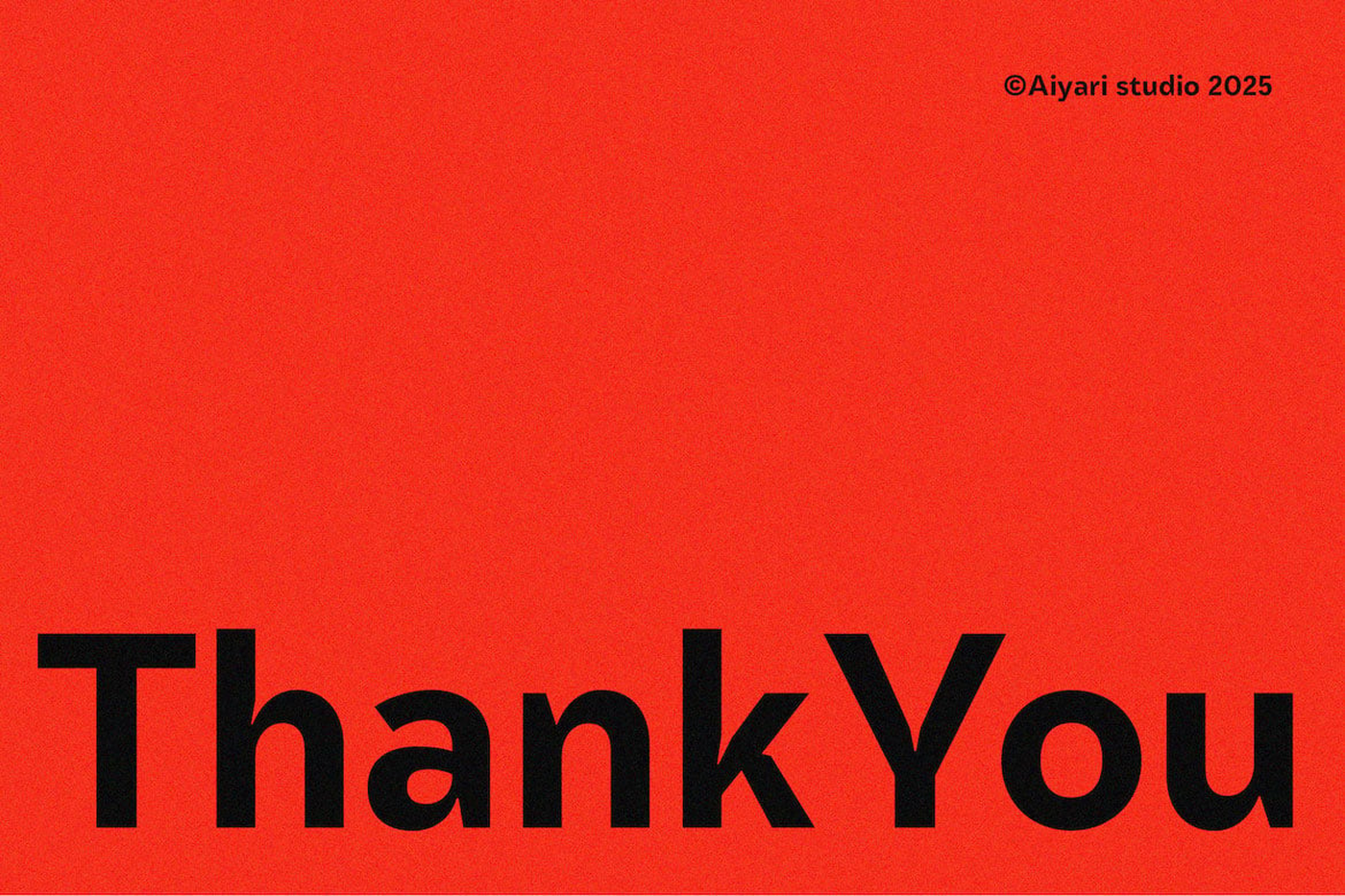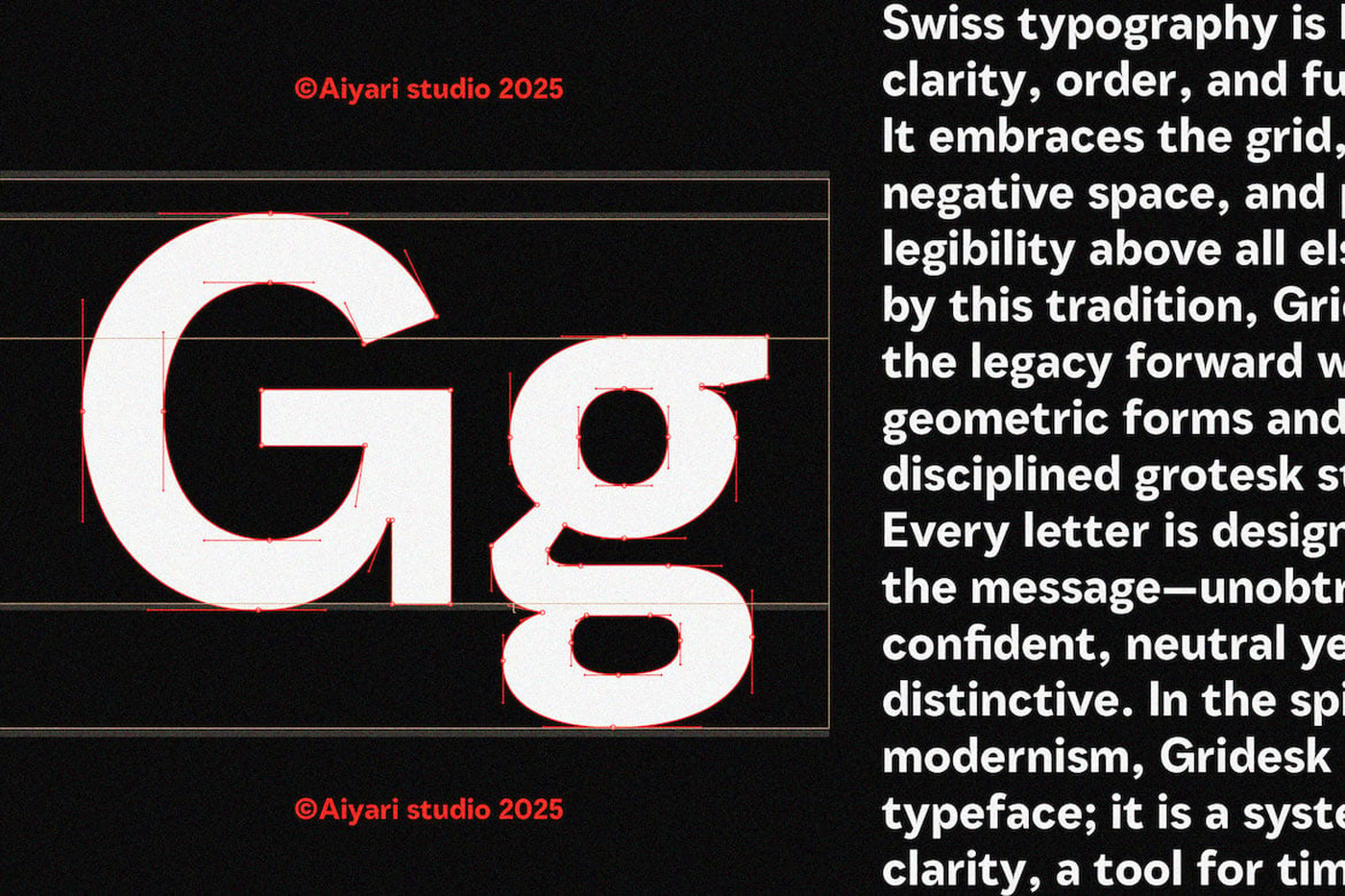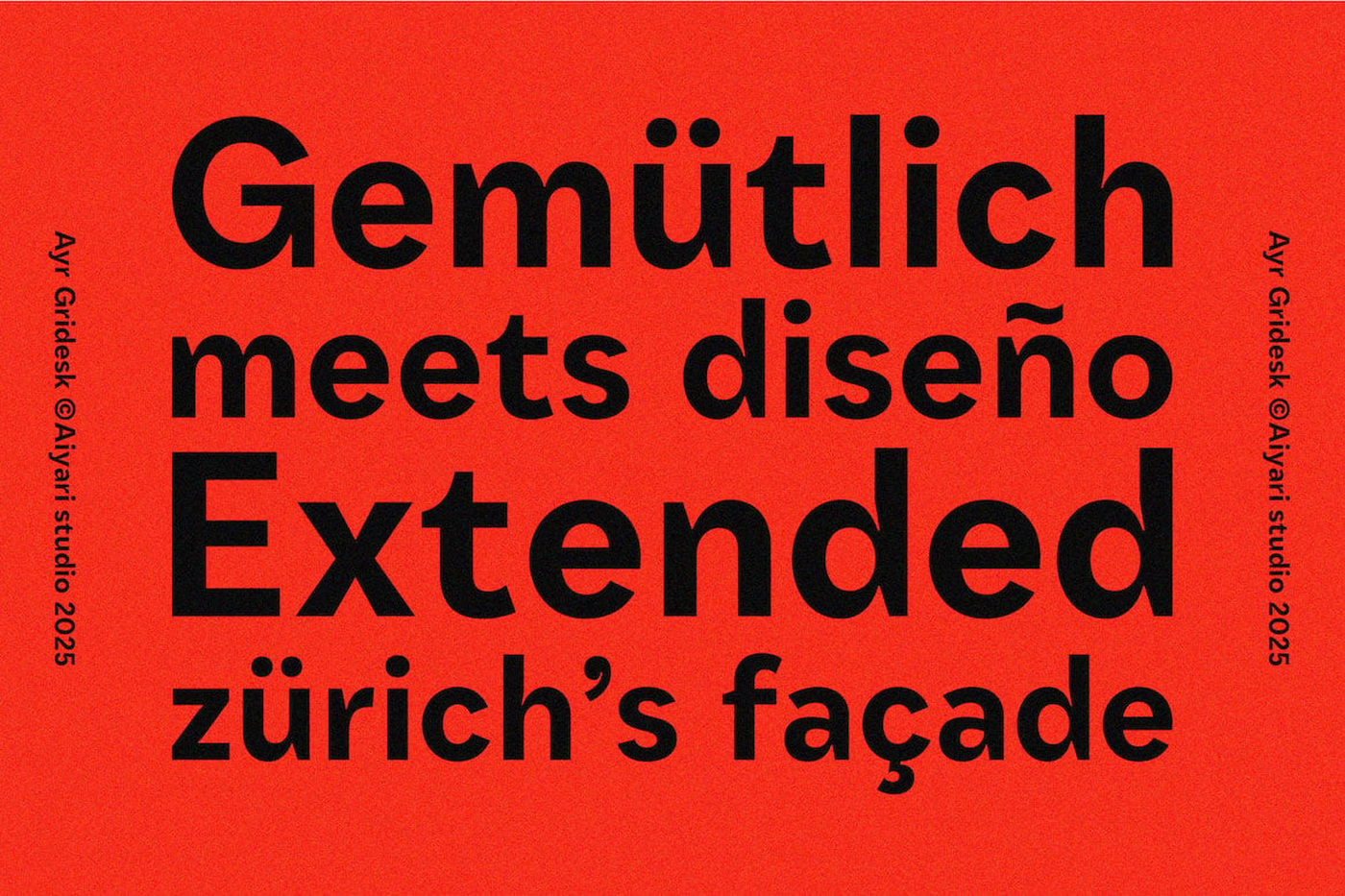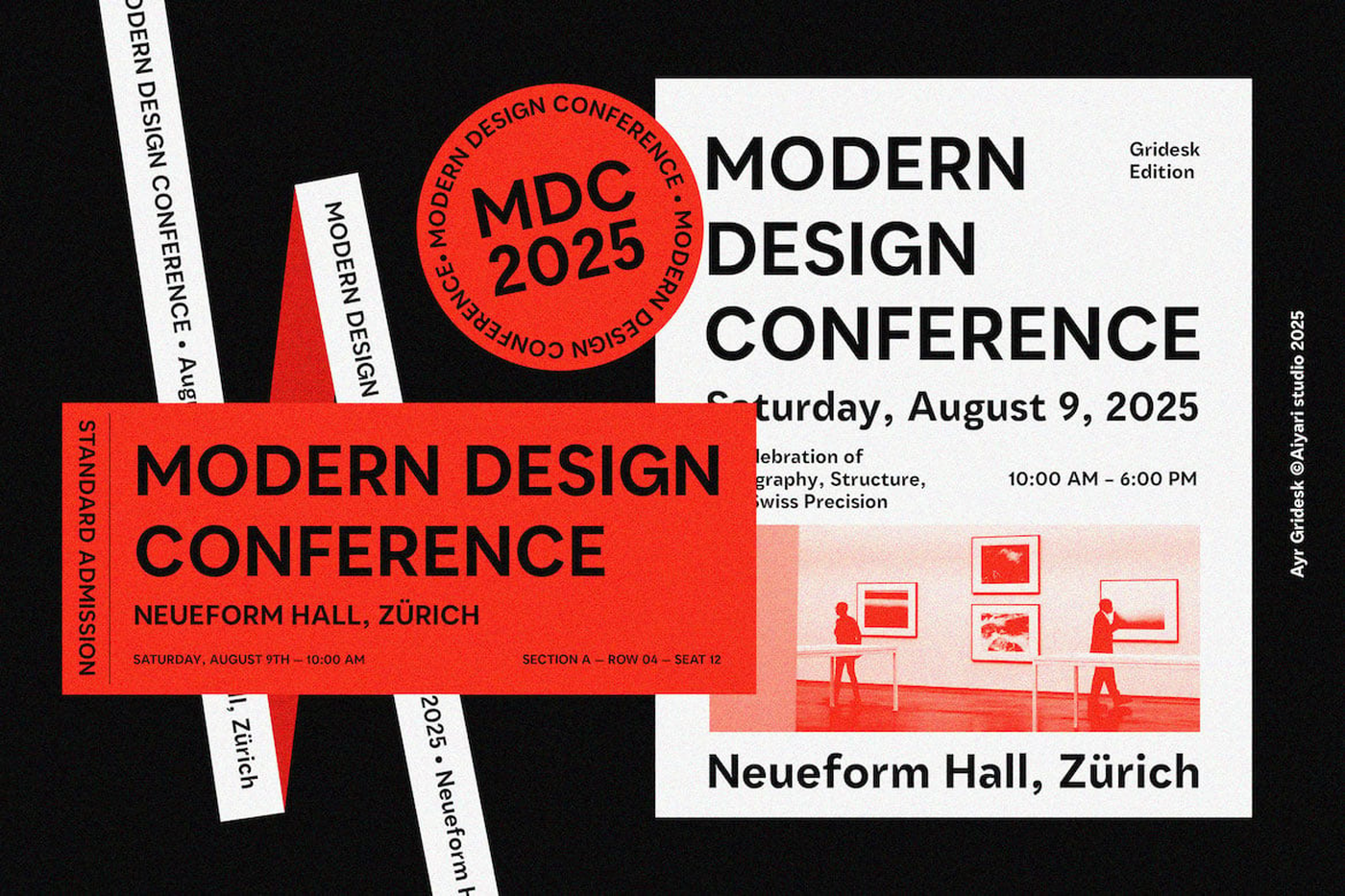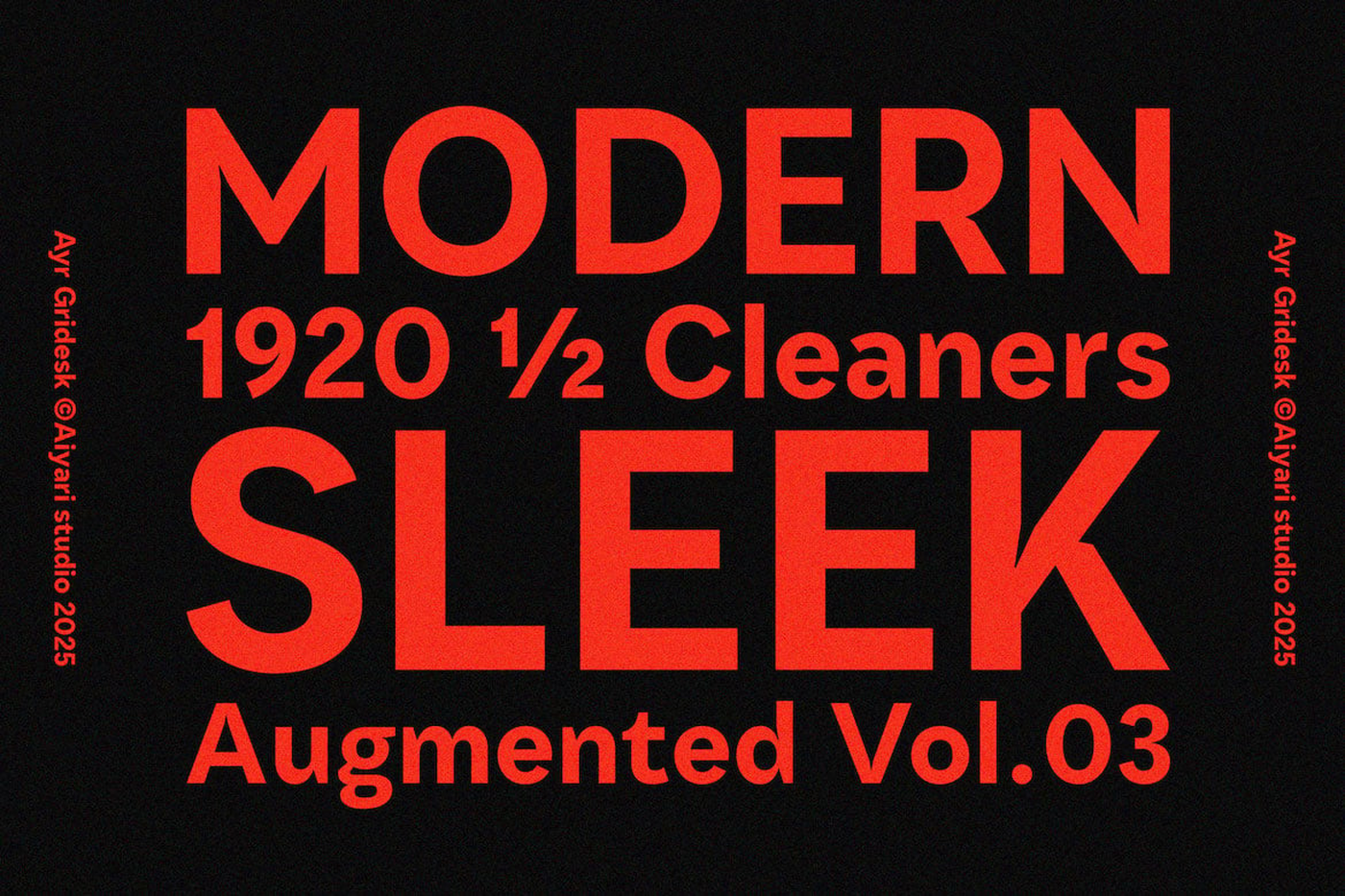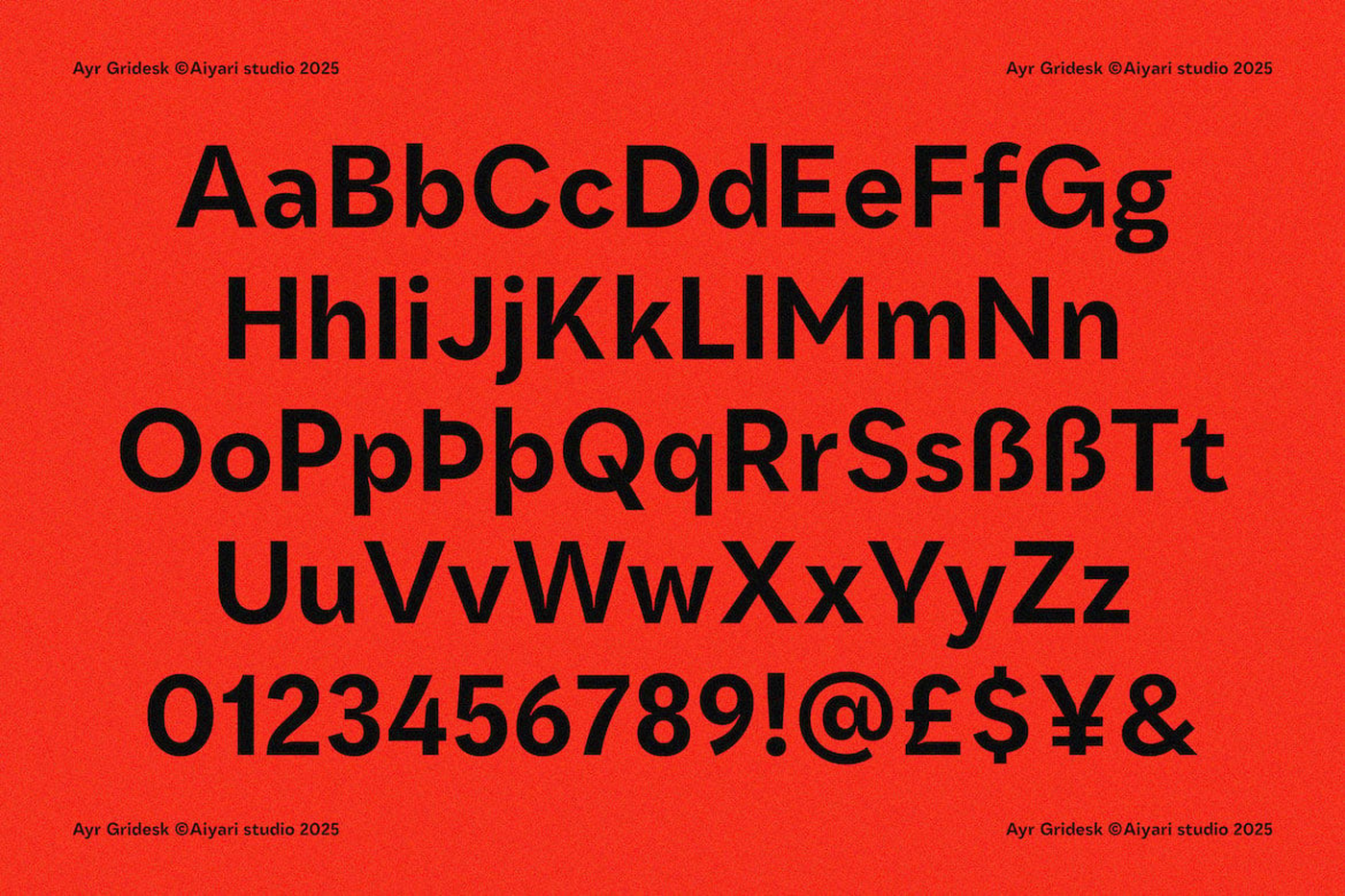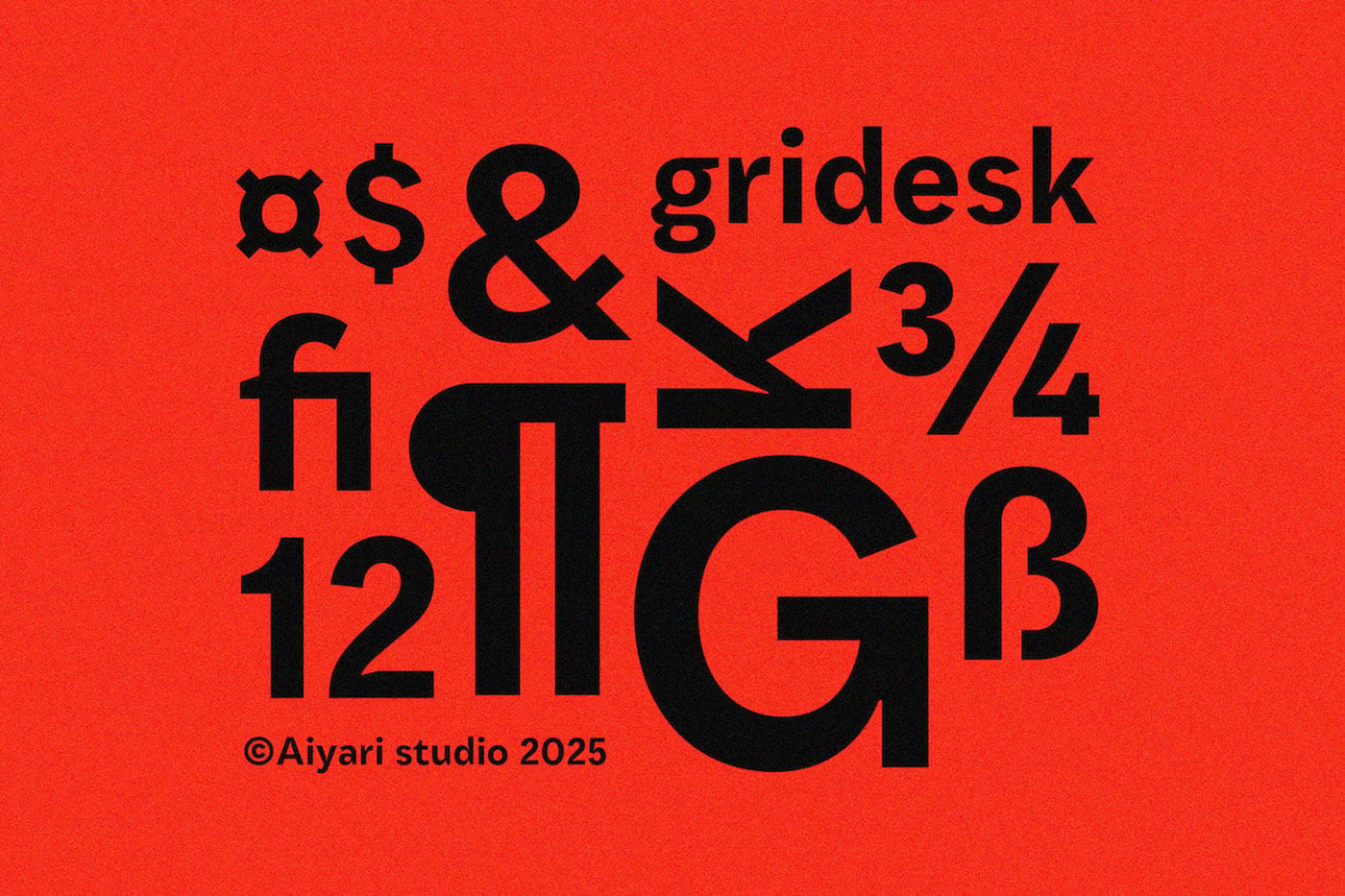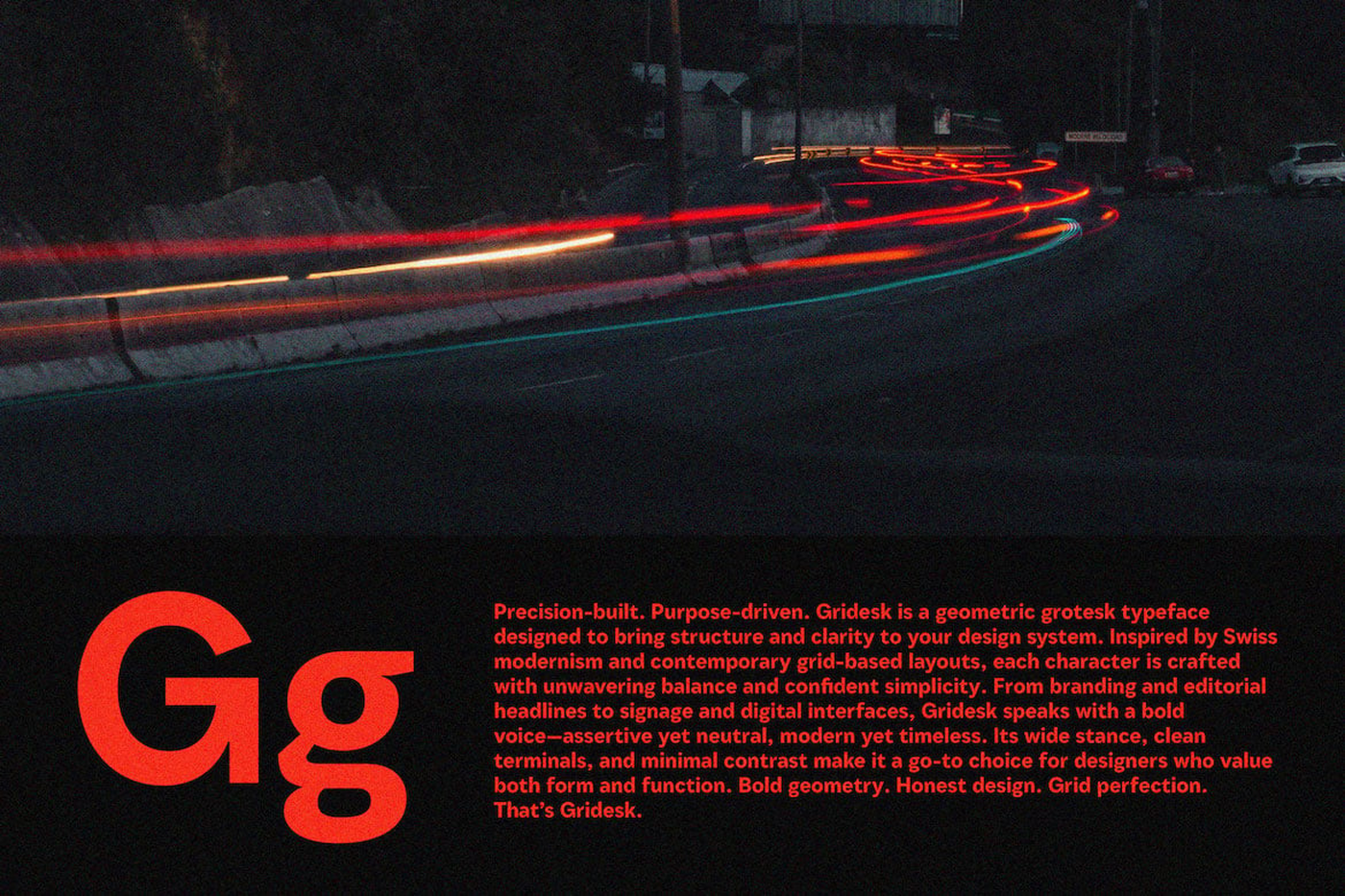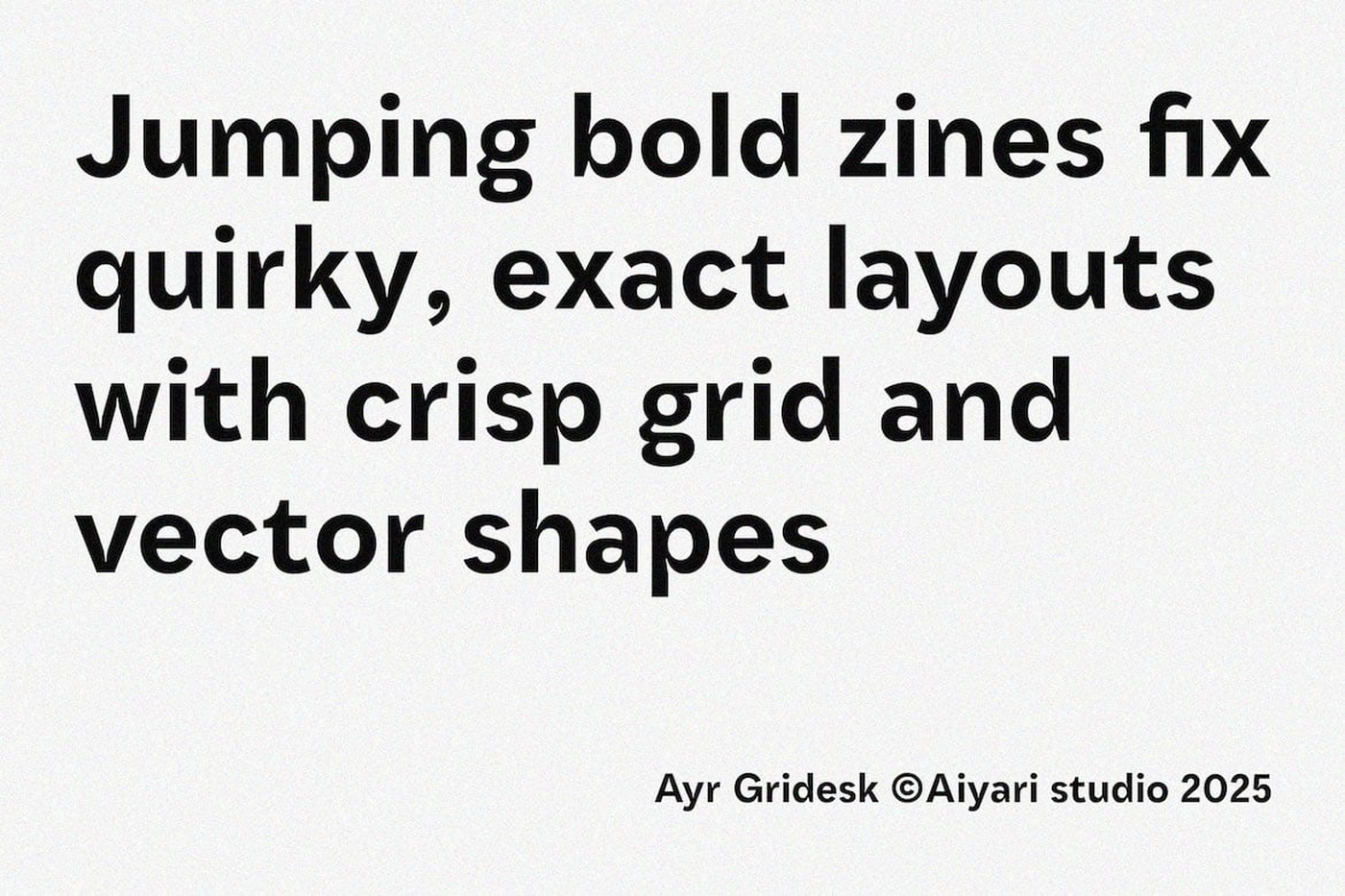
Gridesk - Geometric Sans Serif Font
Gridesk is a bold geometric sans-serif typeface with strong vertical stress and minimal stroke contrast. The letterforms feature clean, monolinear strokes with modernist proportions and closed apertures. The font exudes a confident and utilitarian feel, inspired by mid-century Swiss design and modern European typography Gridesk is best used for bold branding, editorial layouts, posters, signage, and modern interfaces. With its geometric structure and Swiss-inspired clarity, it excels in design systems that demand precision, hierarchy, and confident visual presence—perfect for both print and digital applications.